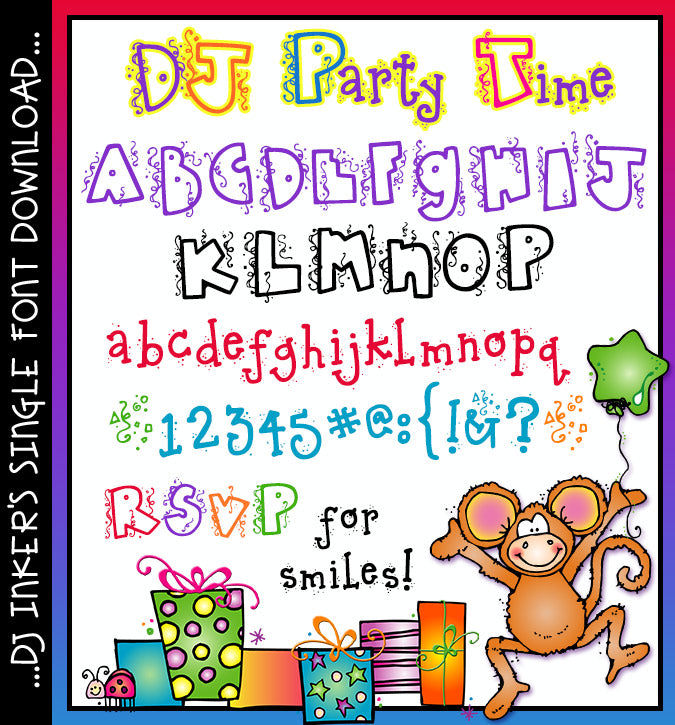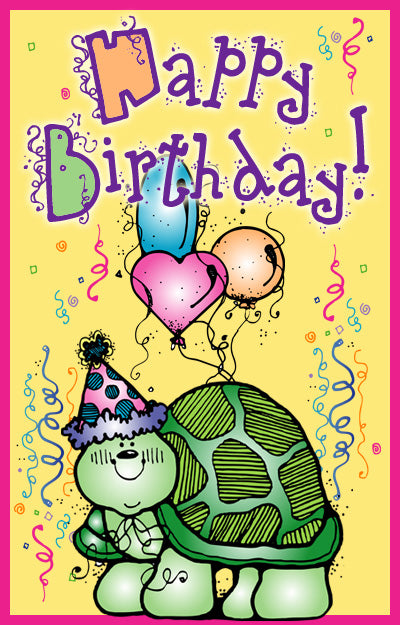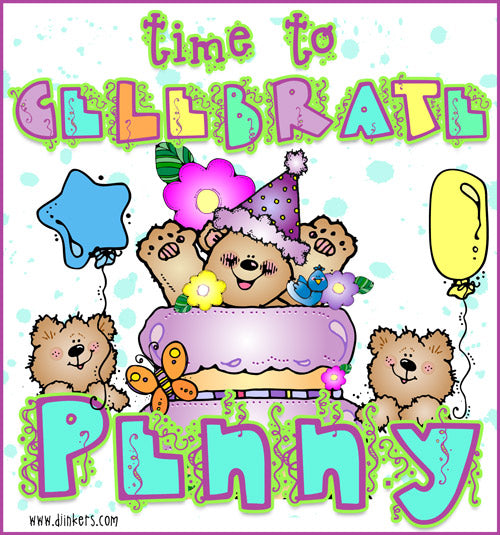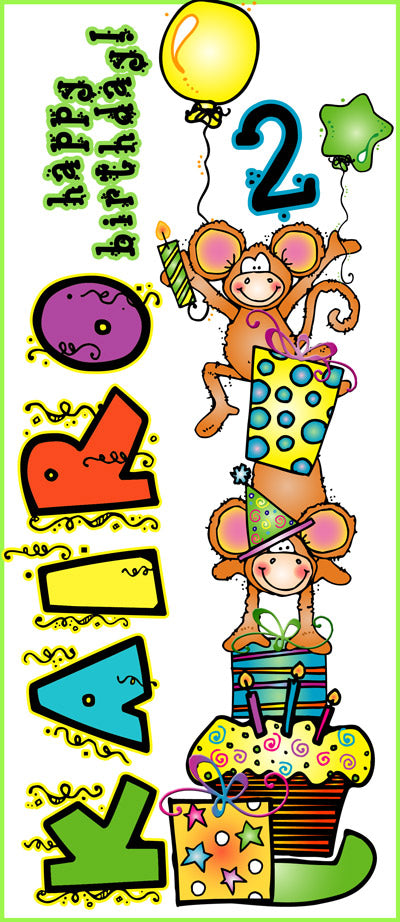
DJ Party Time Font Download
It's Party Time... and you're invited to join DJ Inkers in creating all
sorts smiles for the celebration! This fun confetti font will be perfect
for invitations, decorations, cards, banners, party favors, birthday wishes,
gift tags and more. Hooray!
Note: this font has been revised (& improved) from 'DJ Parade' on Font-astic Too.